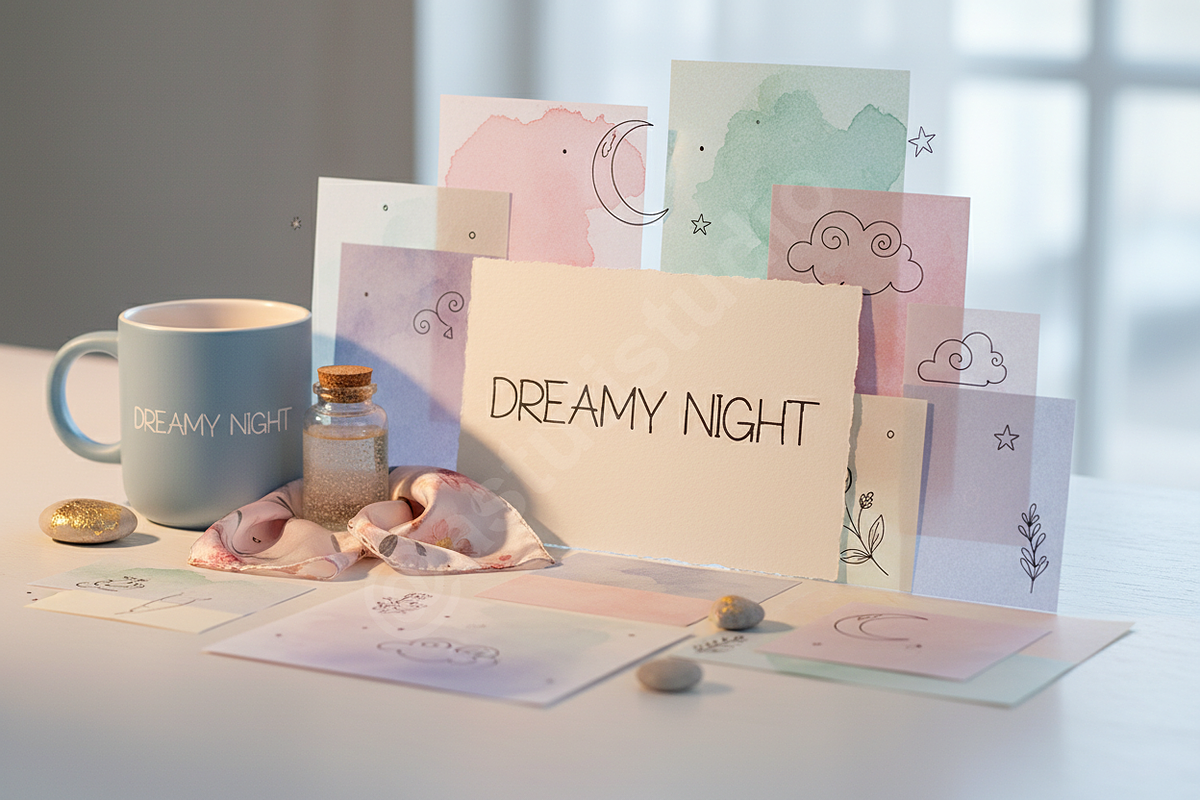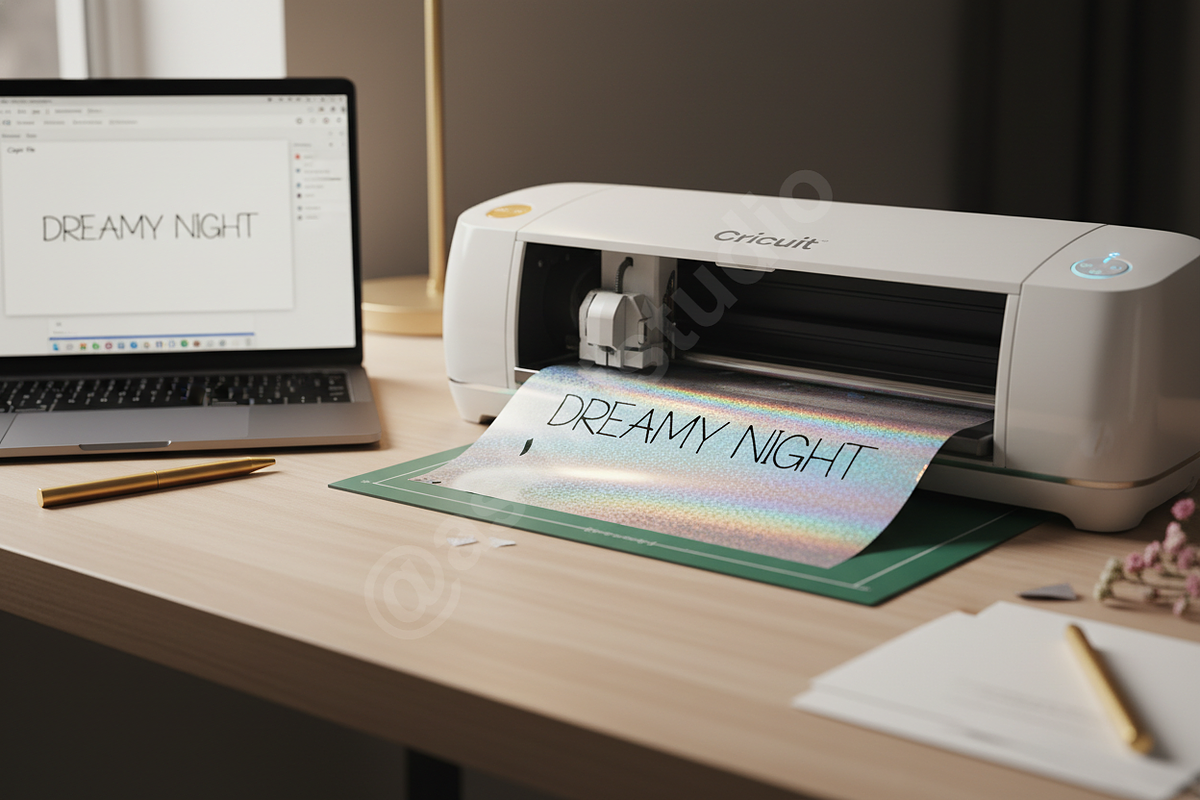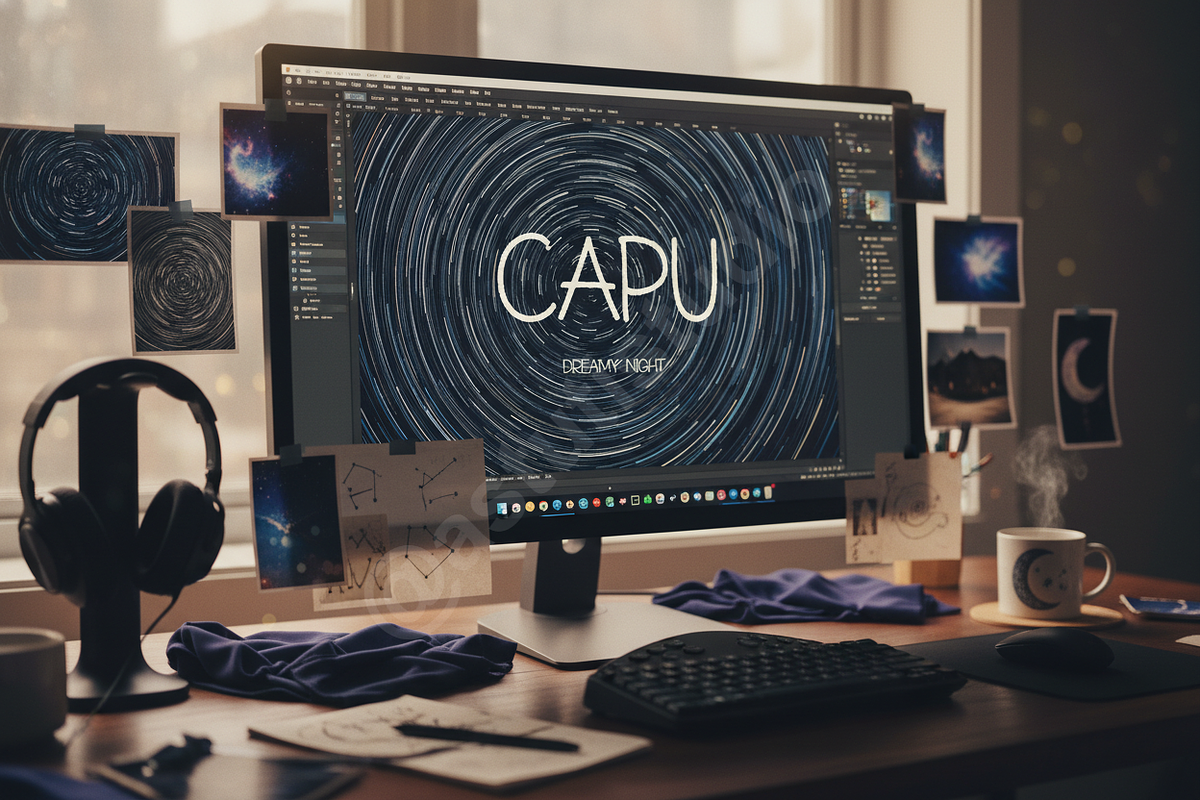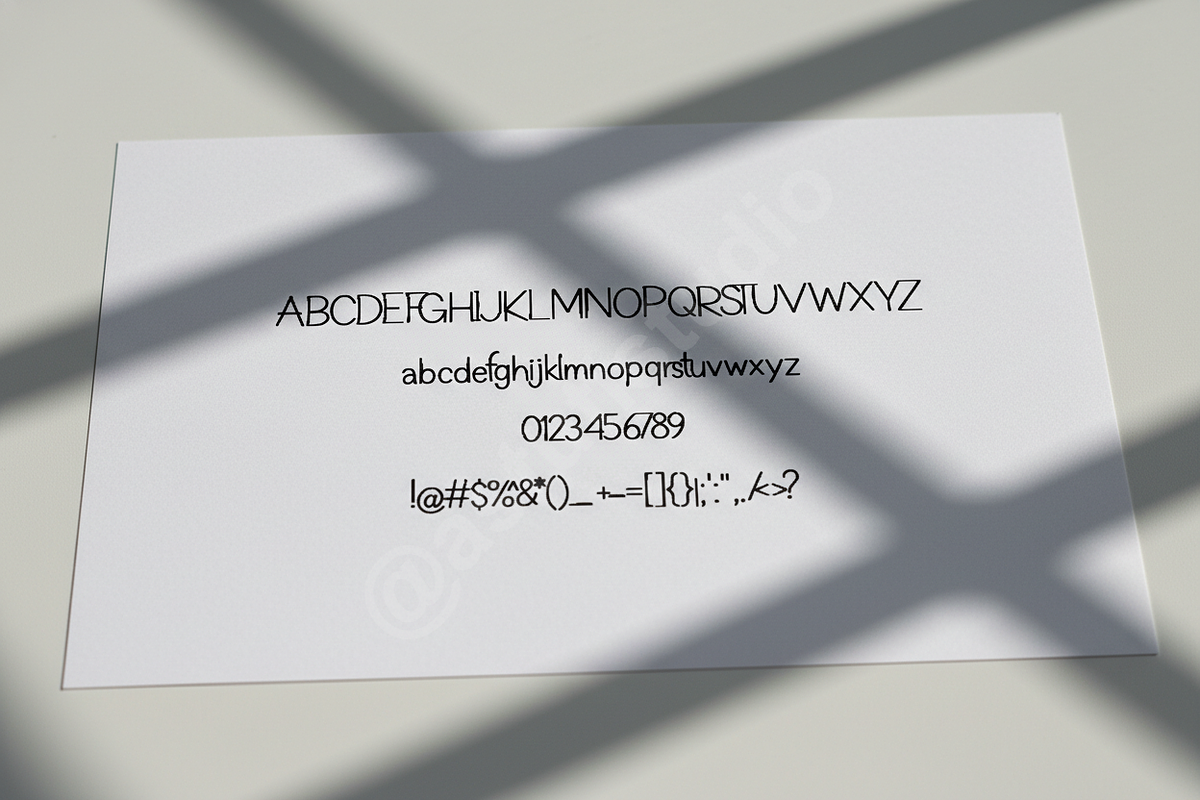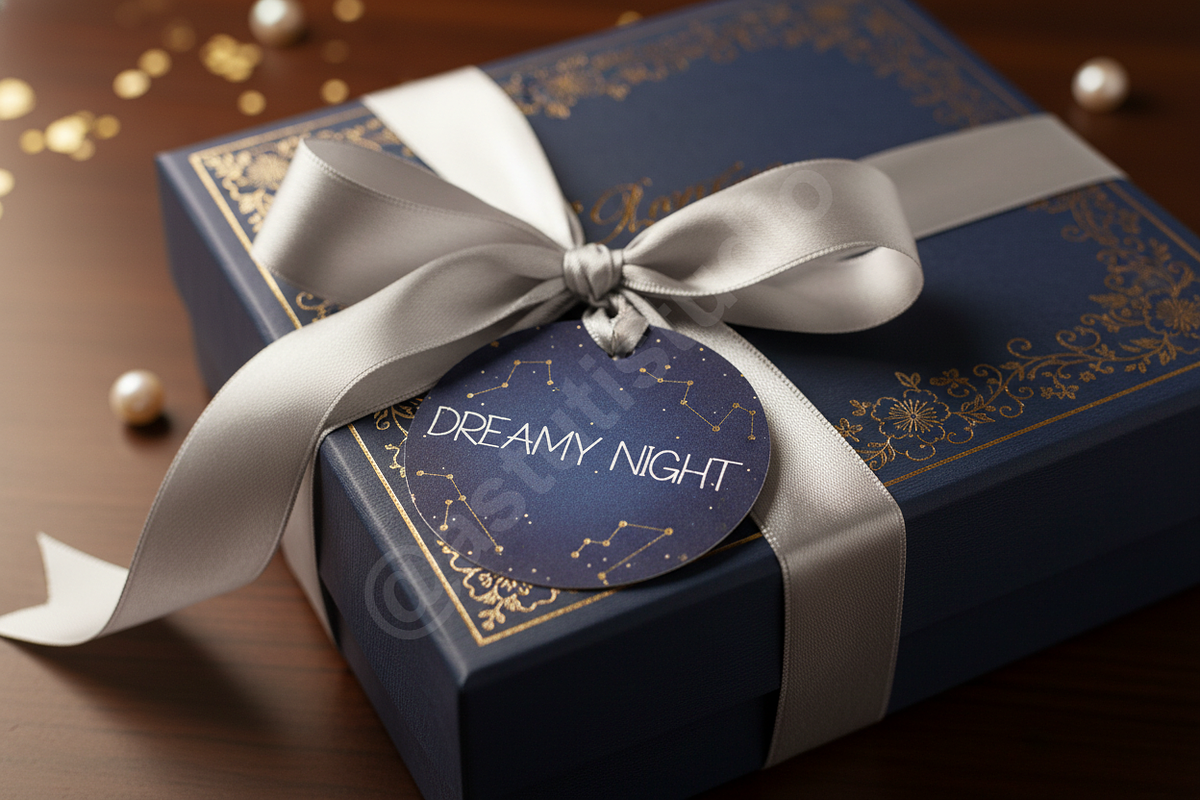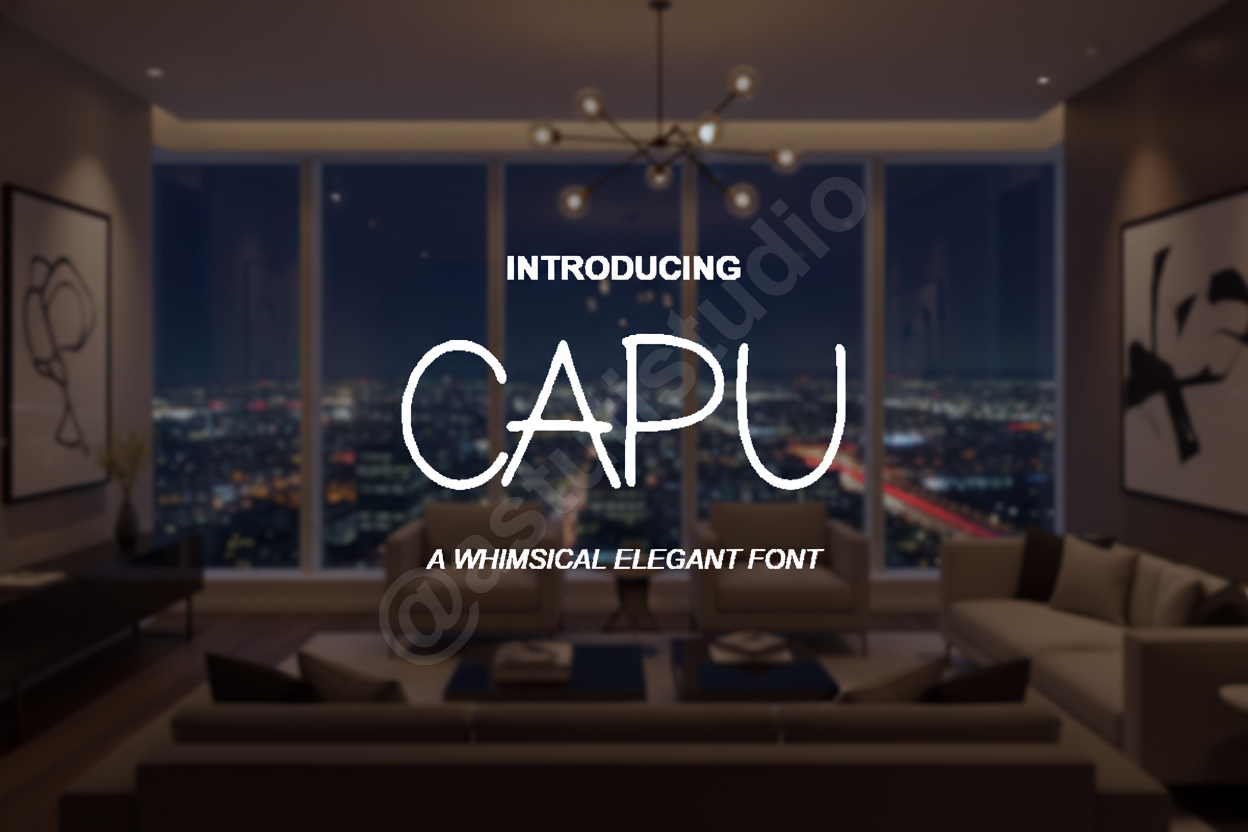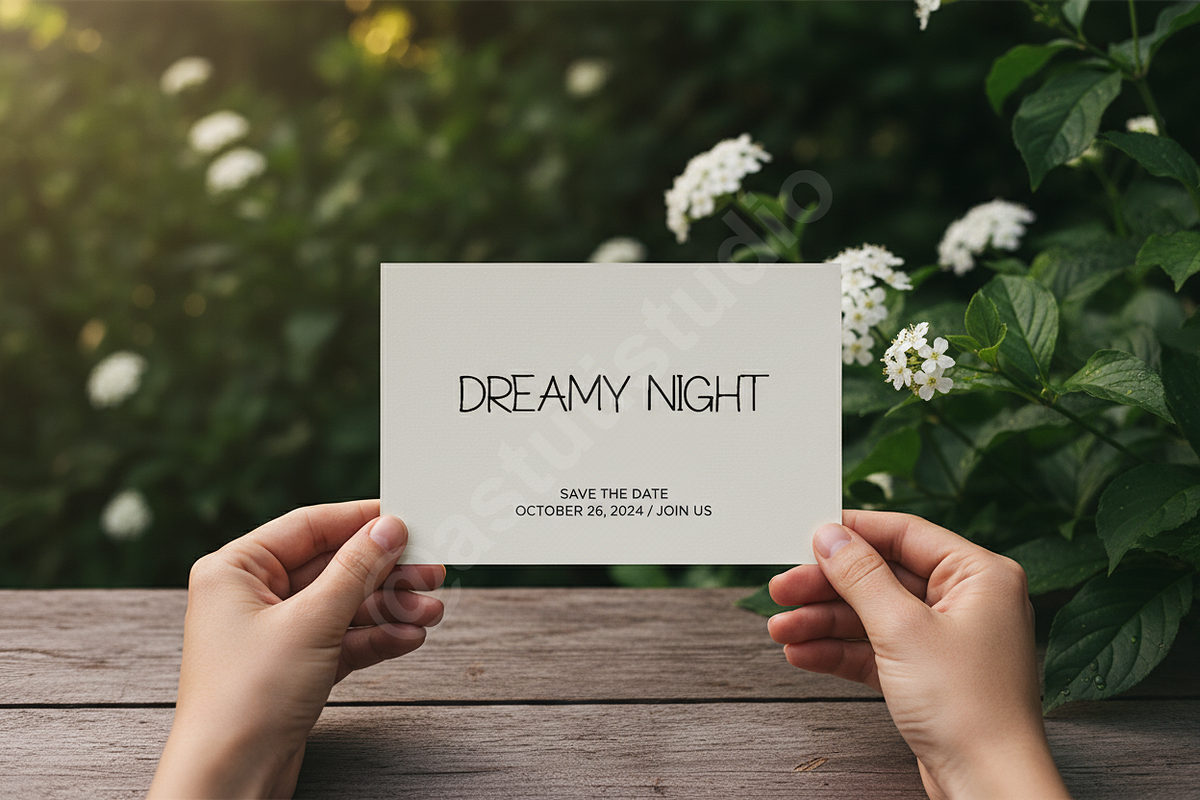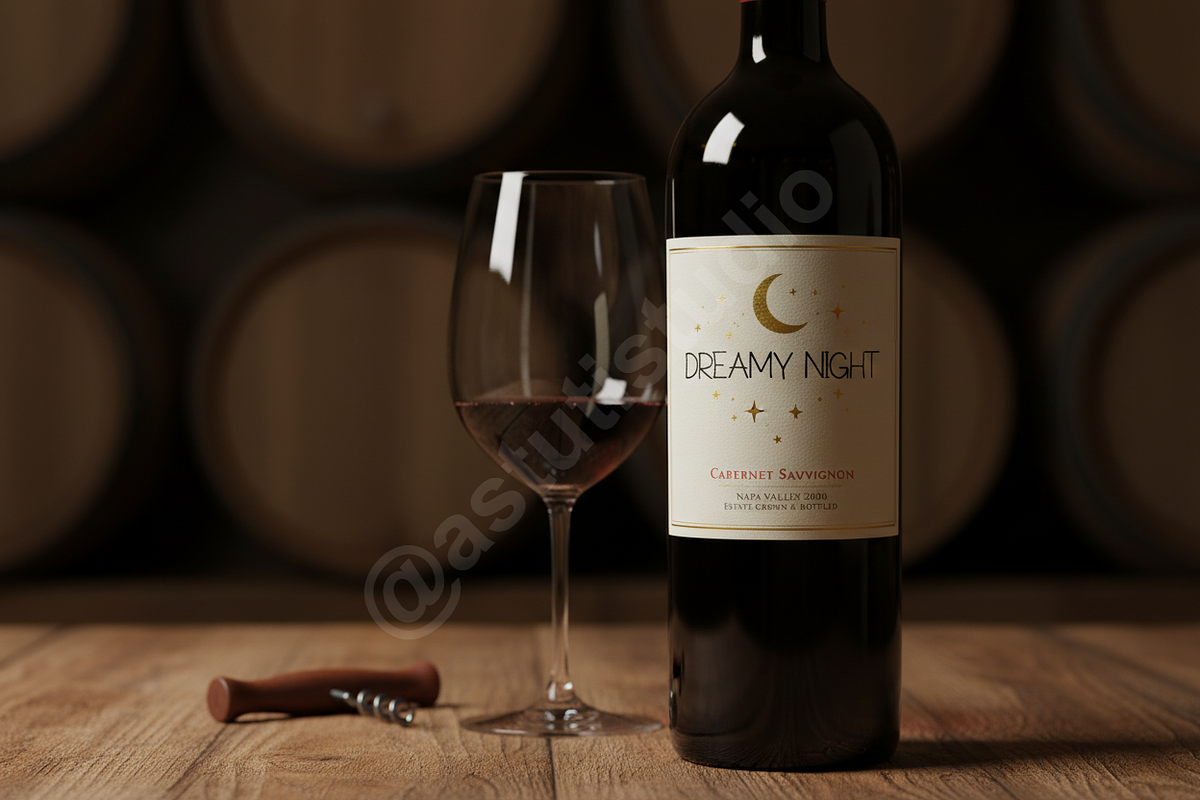
Capu - Elegant Modern Serif Font for
Introducing Capu, a meticulously crafted modern serif typeface designed for the discerning creative. Capu embodies effortless sophistication, blending timeless elegance with contemporary sharpness. Its high contrast, delicate serifs, and perfectly balanced curves ensure visual harmony in any high-end application. Capu is the ultimate design partner for projects that demand luxury, authority, and refined visual appeal.
Capu is engineered for impact and versatility, making it the perfect choice for prestige branding, exquisite magazine layouts, and striking social media content.
- Opulent Character Set: Includes uppercase, lowercase, numbers, and extensive punctuation.
- High Contrast Design: Optimal readability and stunning impact in large editorial layouts.
- Versatile Application: Ideal for corporate identities, prestigious publication covers, high-fashion advertisements, and compelling social media visuals.
- Multi-Language Support: Comprehensive Western European language characters for global reach.